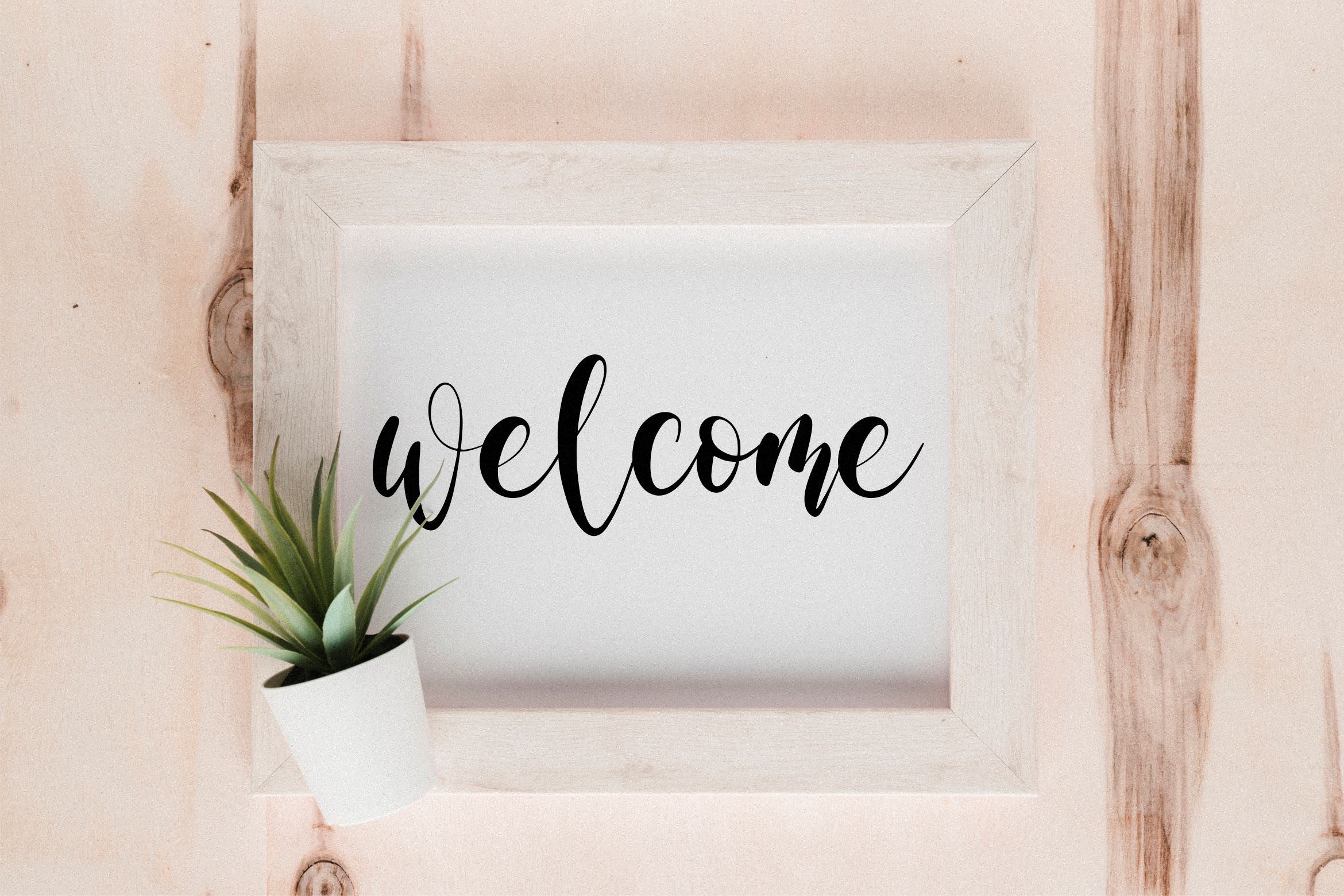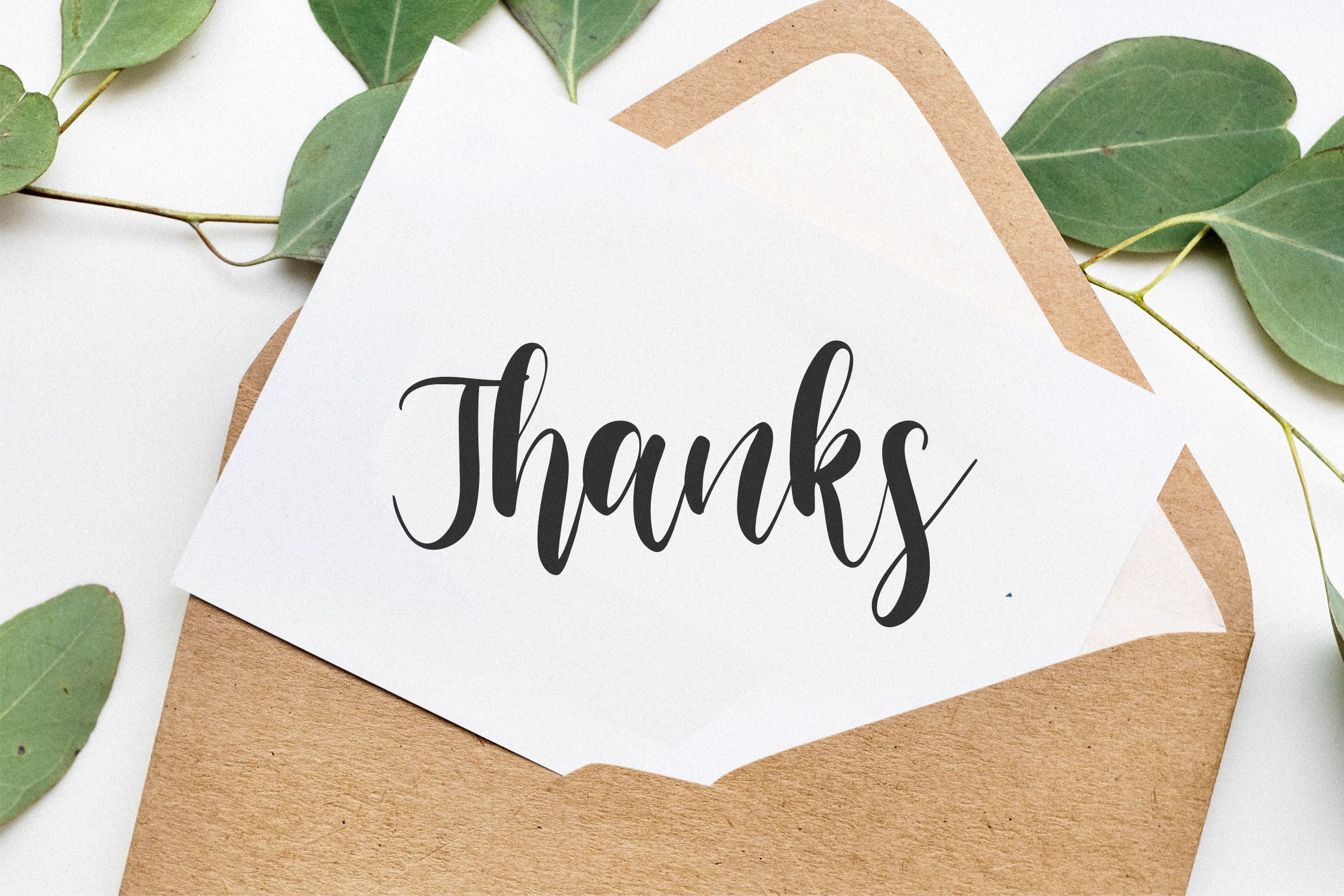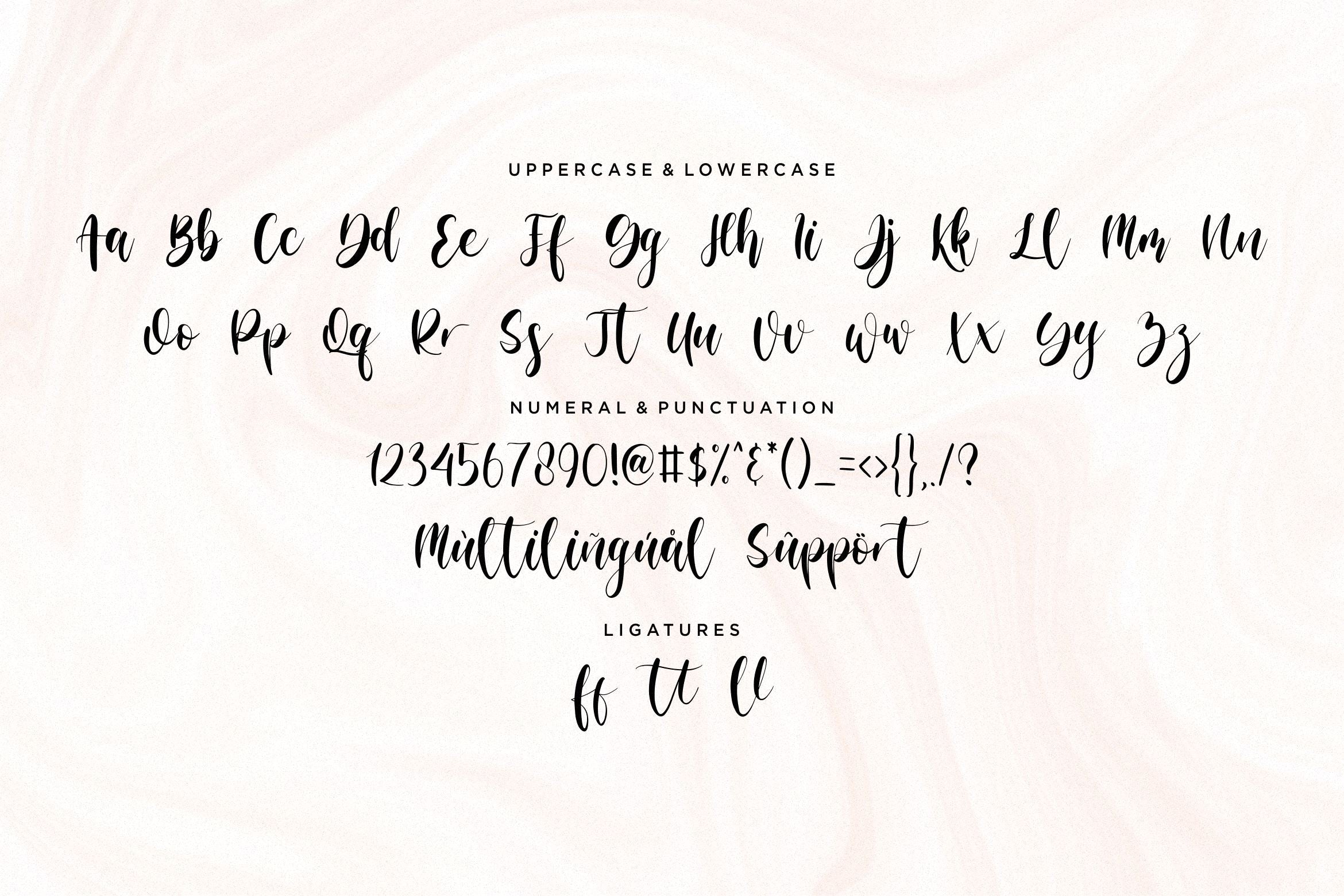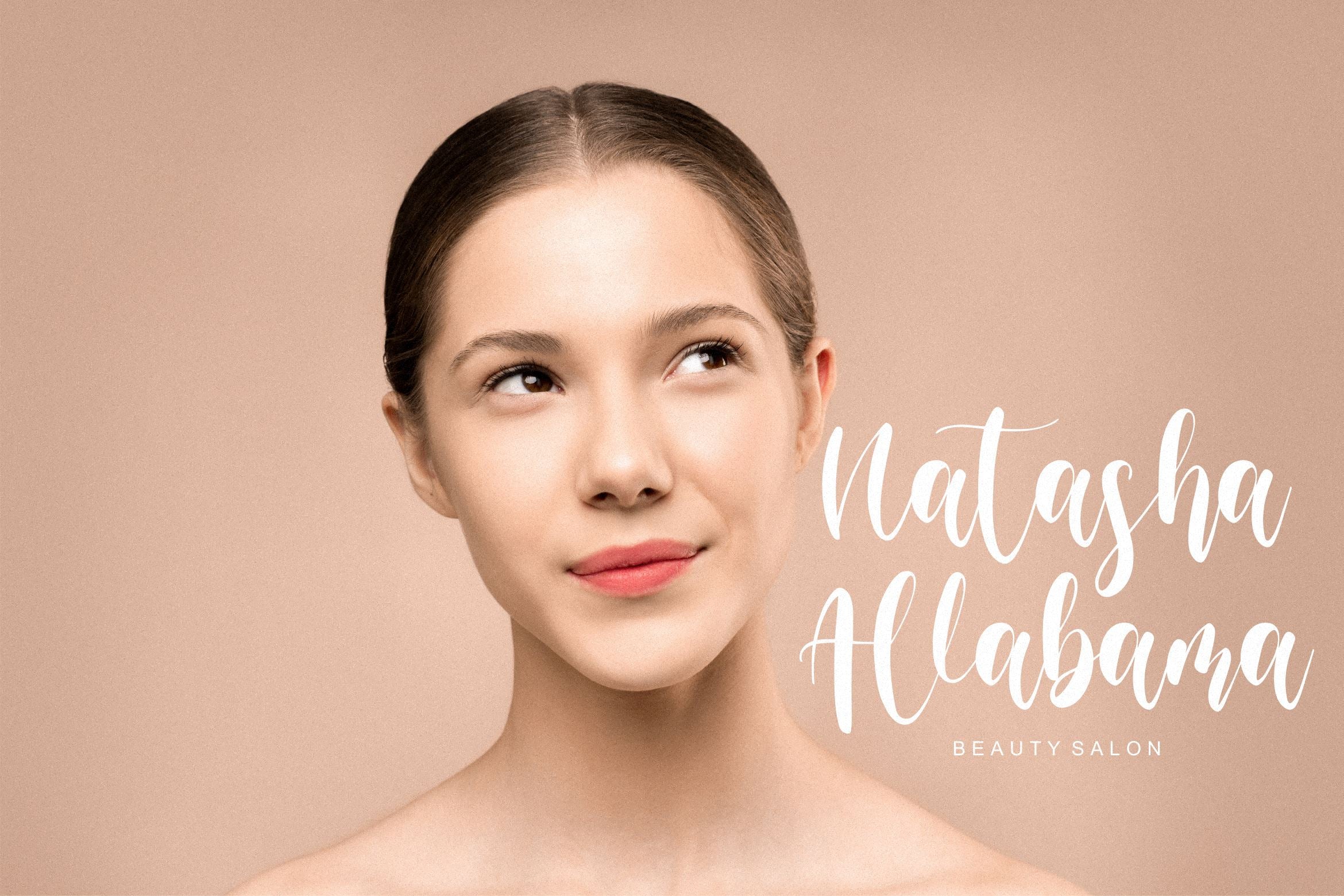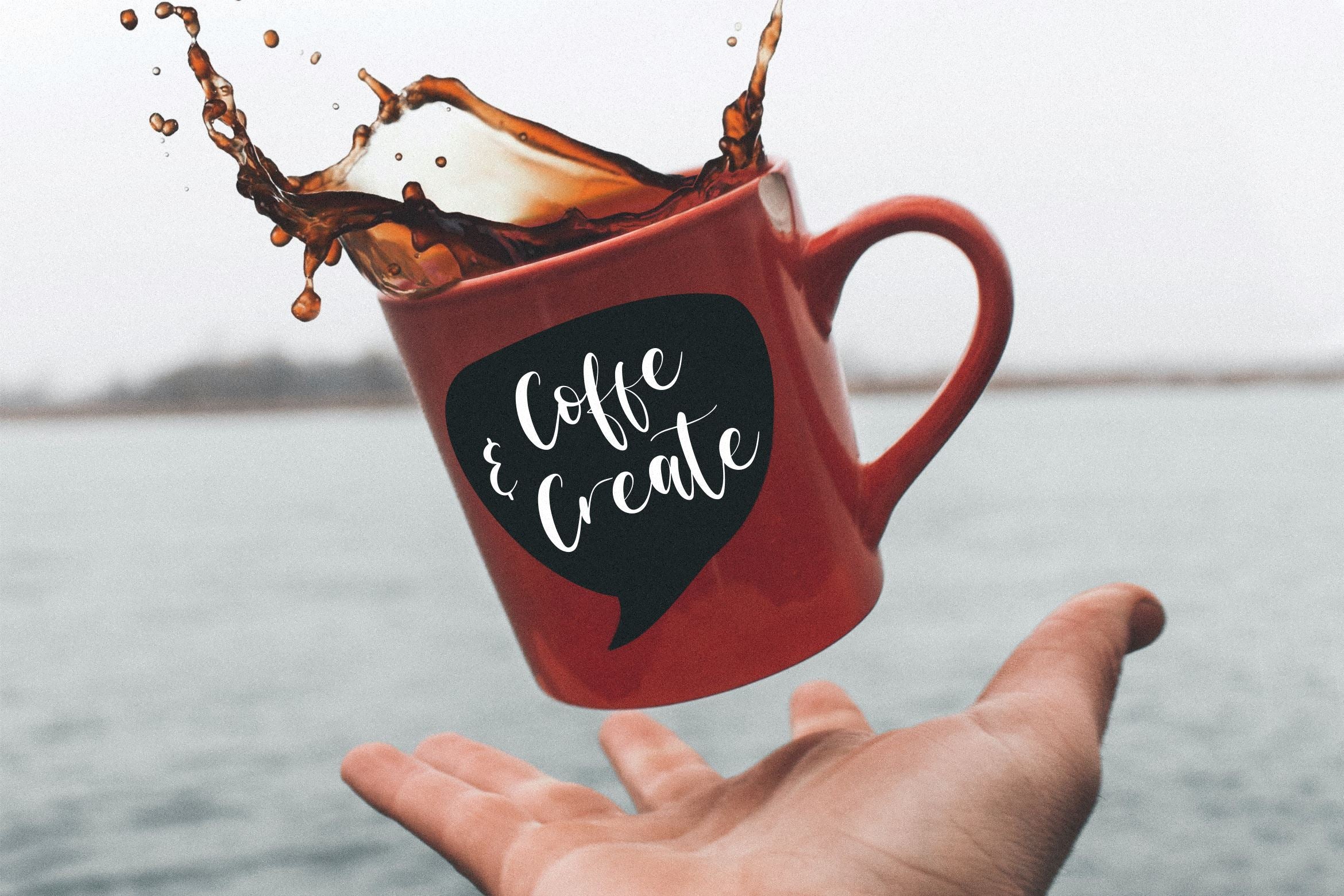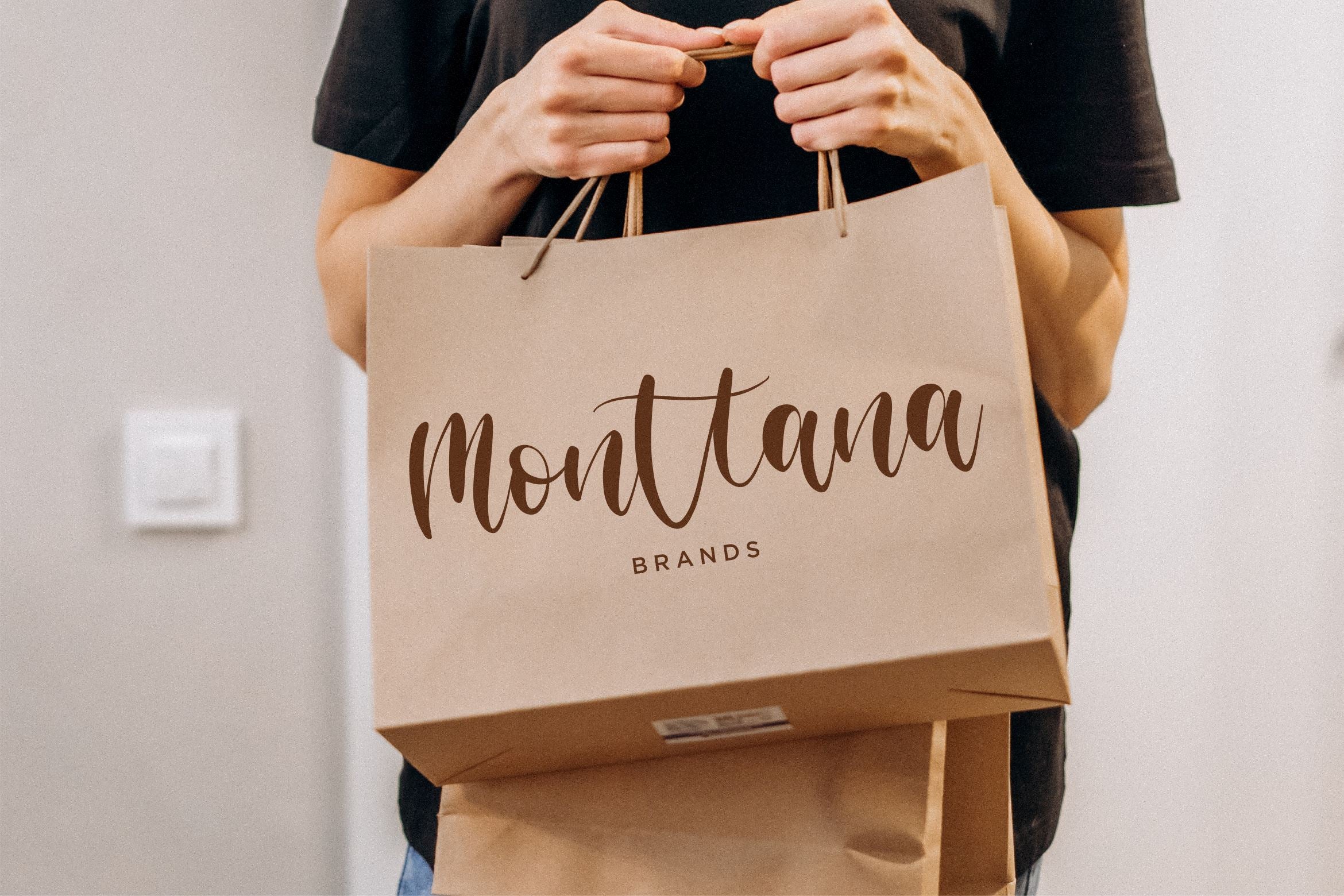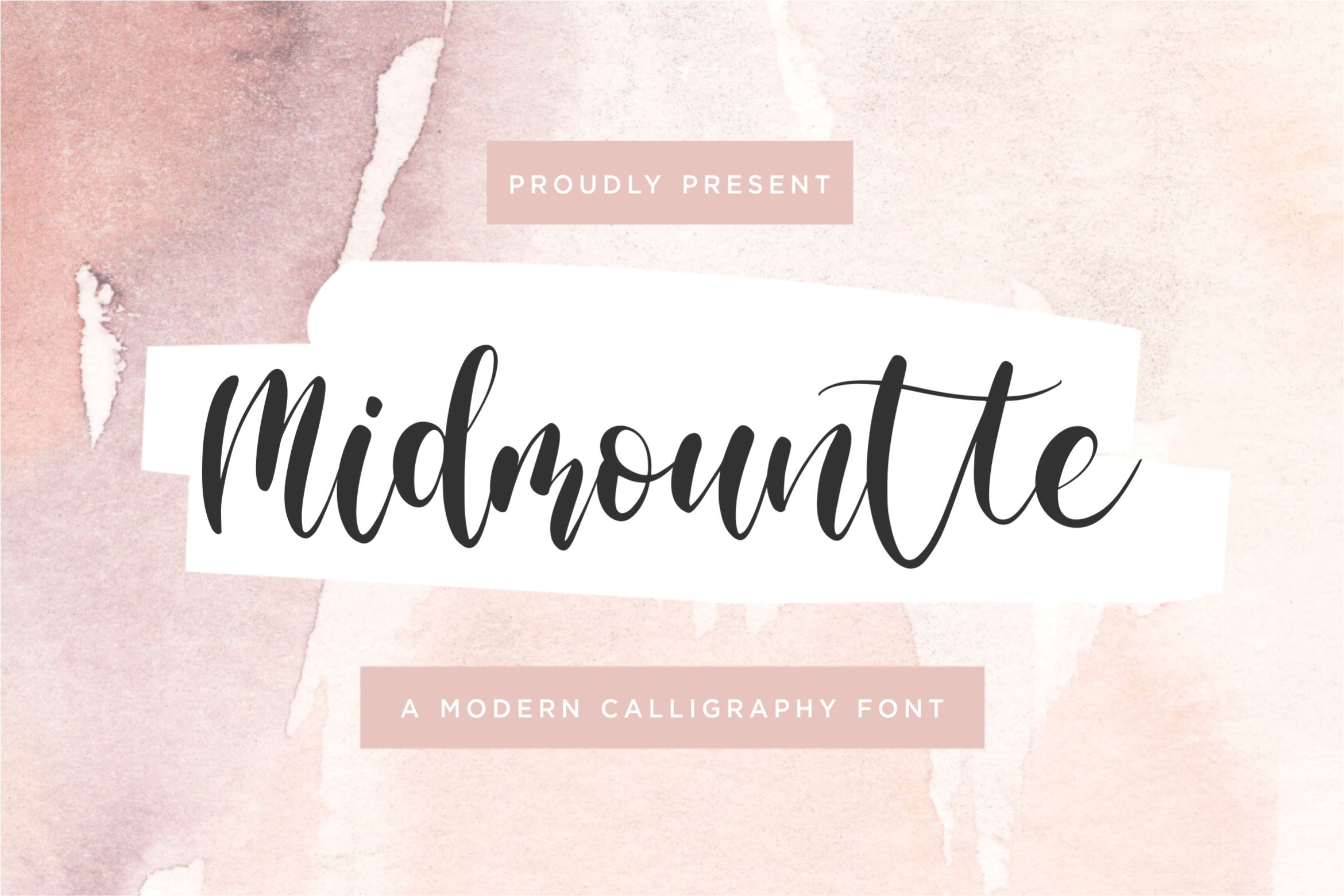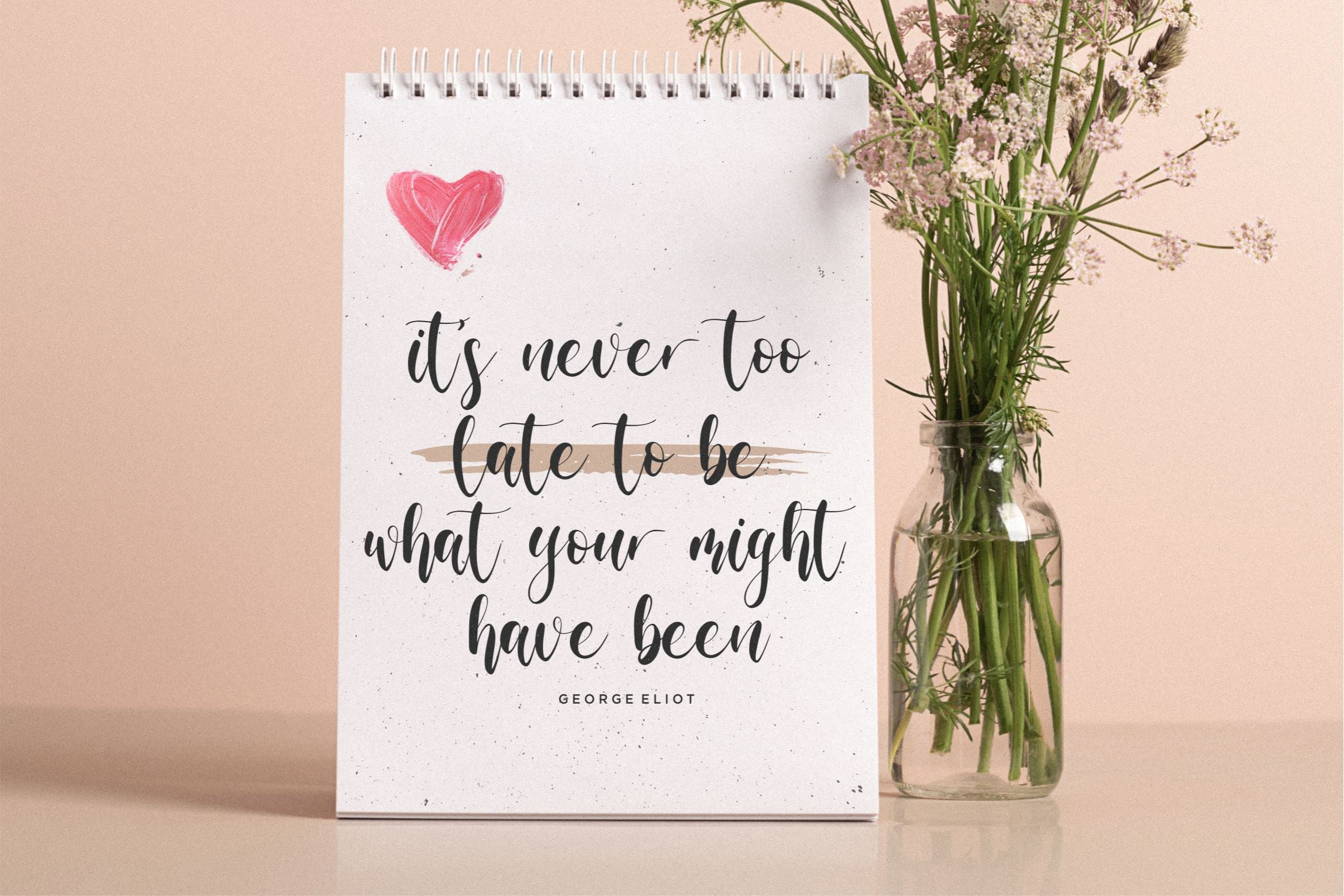
Midmountte
Introducing by Qwrtype Proudly Present, Midmountte Midmountte is a Modern Calligraphy Font Midmountte l is perfect for product packaging, branding project, megazine, social media, wedding, or just used to express words above the background. This font includes OTF, TTF & Woff, Midmountte also multilingual support. Enjoy the font, feel free to comment or feedback, send me PM or email. Thank you!